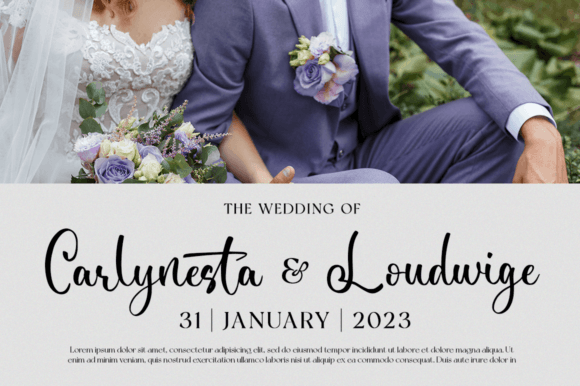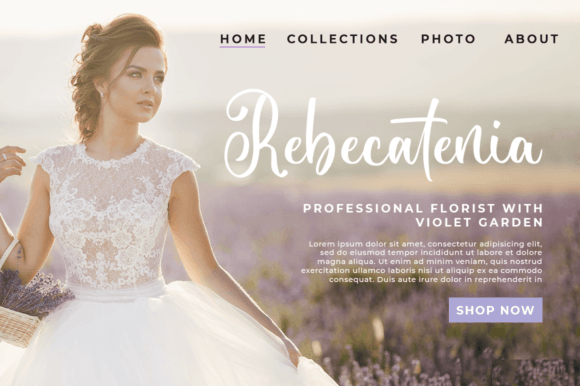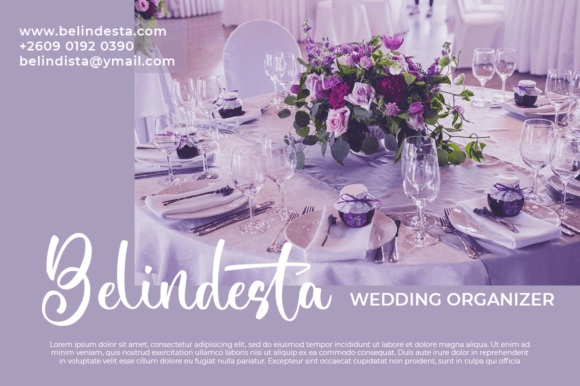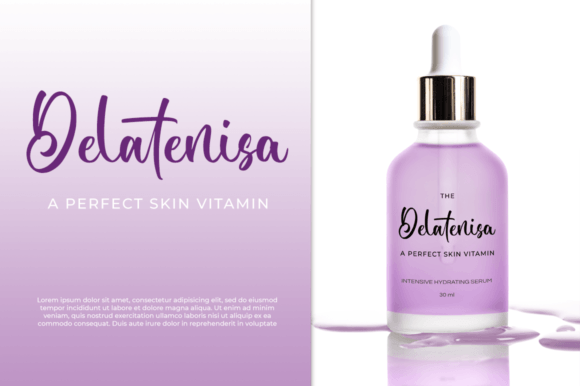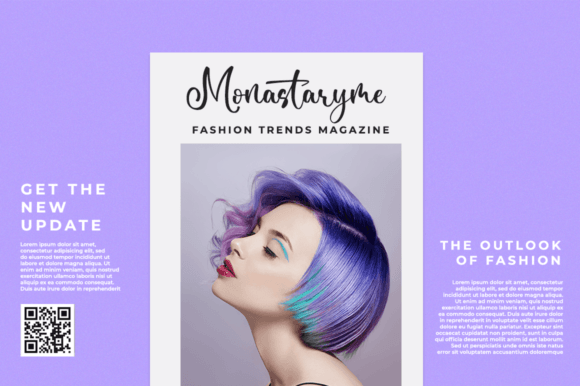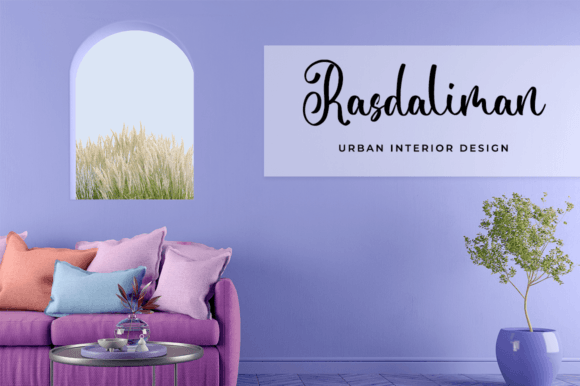
Introduction to Mongastare Font
Mongastare is an elegant handwritten font that feels both gorgeous and distinct.
It looks beautiful on wedding invitations, thank you cards, quotes, greeting cards, logos, business cards, and every other design which needs a customized touch This font is PUA encoded, which means you can access all of the glyphs and swashes with ease.
Key Features of Mongastare Font